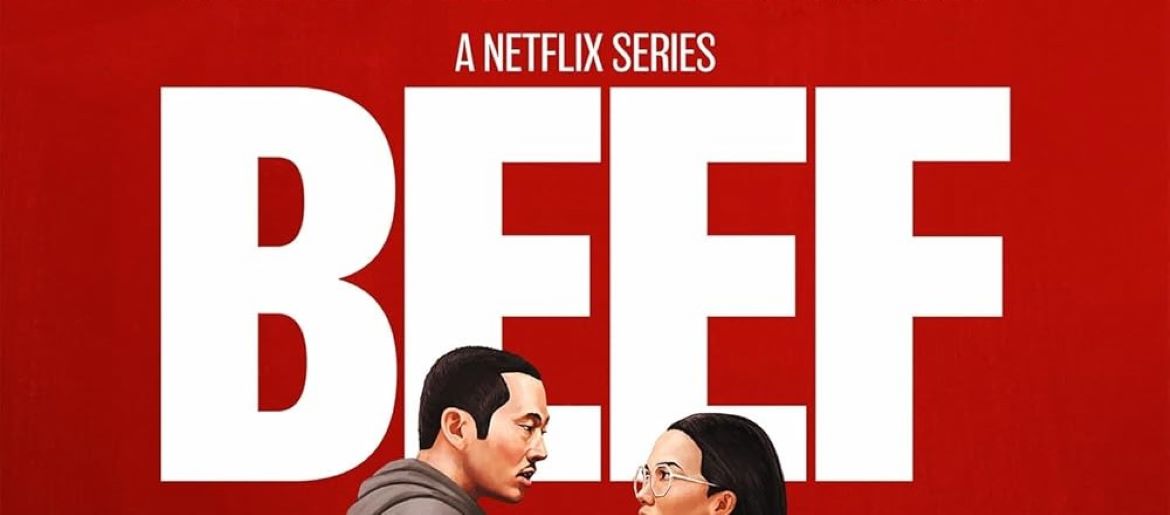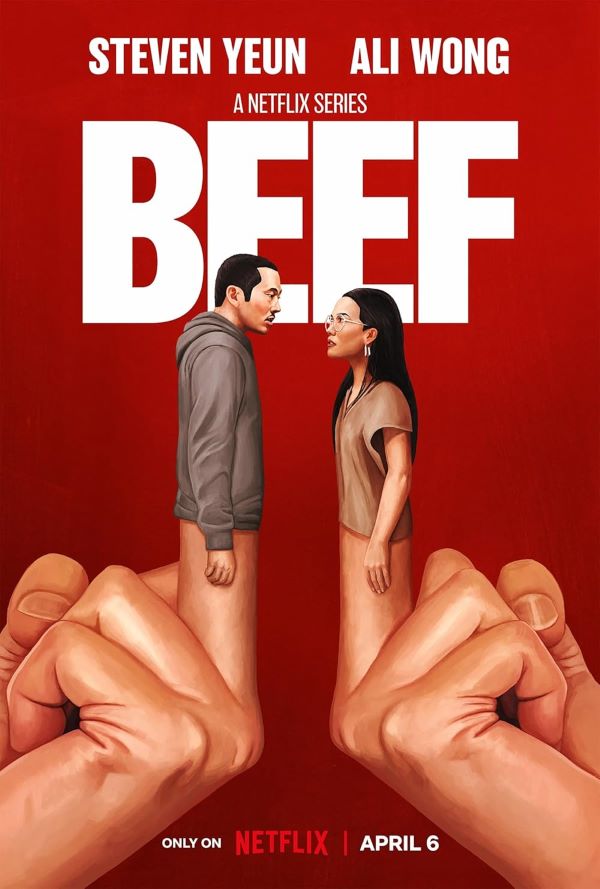
Beef Font
What Font is Beef?
The Beef font reflects the raw, intense emotion at the heart of the acclaimed Netflix series. The primary typeface used is Neue Helvetica Pro 107 Condensed Extra Black, a commercial font recognized for its clean yet forceful presence. Its heavy weight and condensed structure give it a sense of tension and urgency—perfectly mirroring the show’s escalating conflict between two strangers consumed by rage. For designers and fans seeking a similar look, there’s also a free alternative font available that captures the same bold and impactful aesthetic.
About Beef
Beef is a dark comedy-drama television series released in 2023 on Netflix, created by Lee Sung Jin. The show stars Steven Yeun and Ali Wong as two strangers whose lives spiral out of control after a road rage incident. What begins as a petty feud evolves into a chaotic, deeply emotional exploration of anger, identity, and human connection. Praised for its sharp writing, psychological depth, and powerful performances, Beef became one of the most talked-about series of the year, blending humor and heartbreak in equal measure.